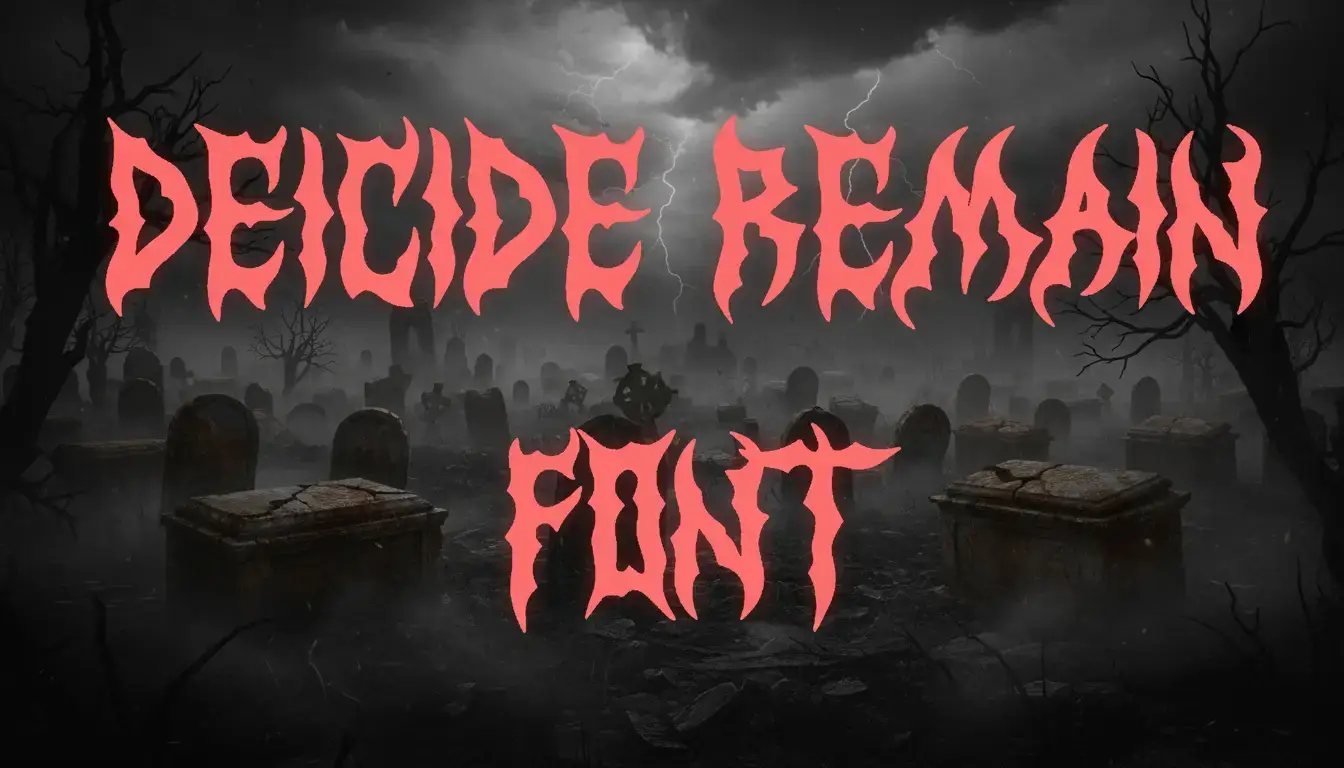
Deicide Remain Font
Deicide Remain
Deicide Remain is a gothic font created by Rony Rizki jaya and released through Ronny Studio. Sharp, dark and dramatic, it follows the blackletter tradition of old European manuscripts. It's a free download, and you can try it with your own text in the preview above first.
What You Can Type With Deicide Remain
Deicide Remain covers the full alphabet in upper and lowercase, plus all ten numbers, so you can set names, dates and prices without switching fonts. Common punctuation such as &, !, ? and @ is included as well. It also has the accented letters you need for Spanish, French, German, Portuguese and Italian.
Where Deicide Remain Works Best
Deicide Remain is a natural fit for tattoos, metal band logos and dark fantasy titles. Blackletter is very hard to read in all caps, so type in normal upper and lowercase.
Does Deicide Remain support accented letters?
Yes. Deicide Remain includes the accented letters needed for Spanish, French, German, Portuguese and Italian, so it works for more than just English.